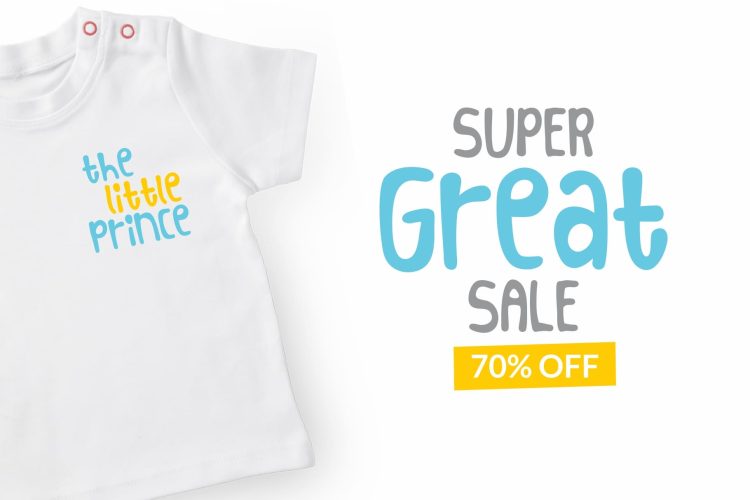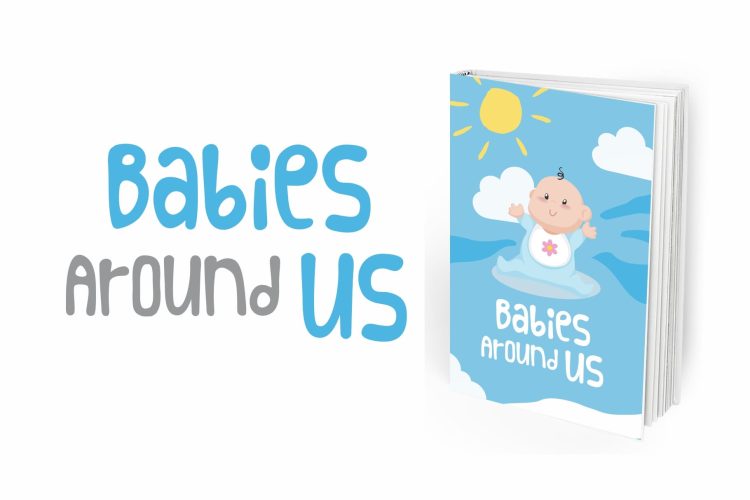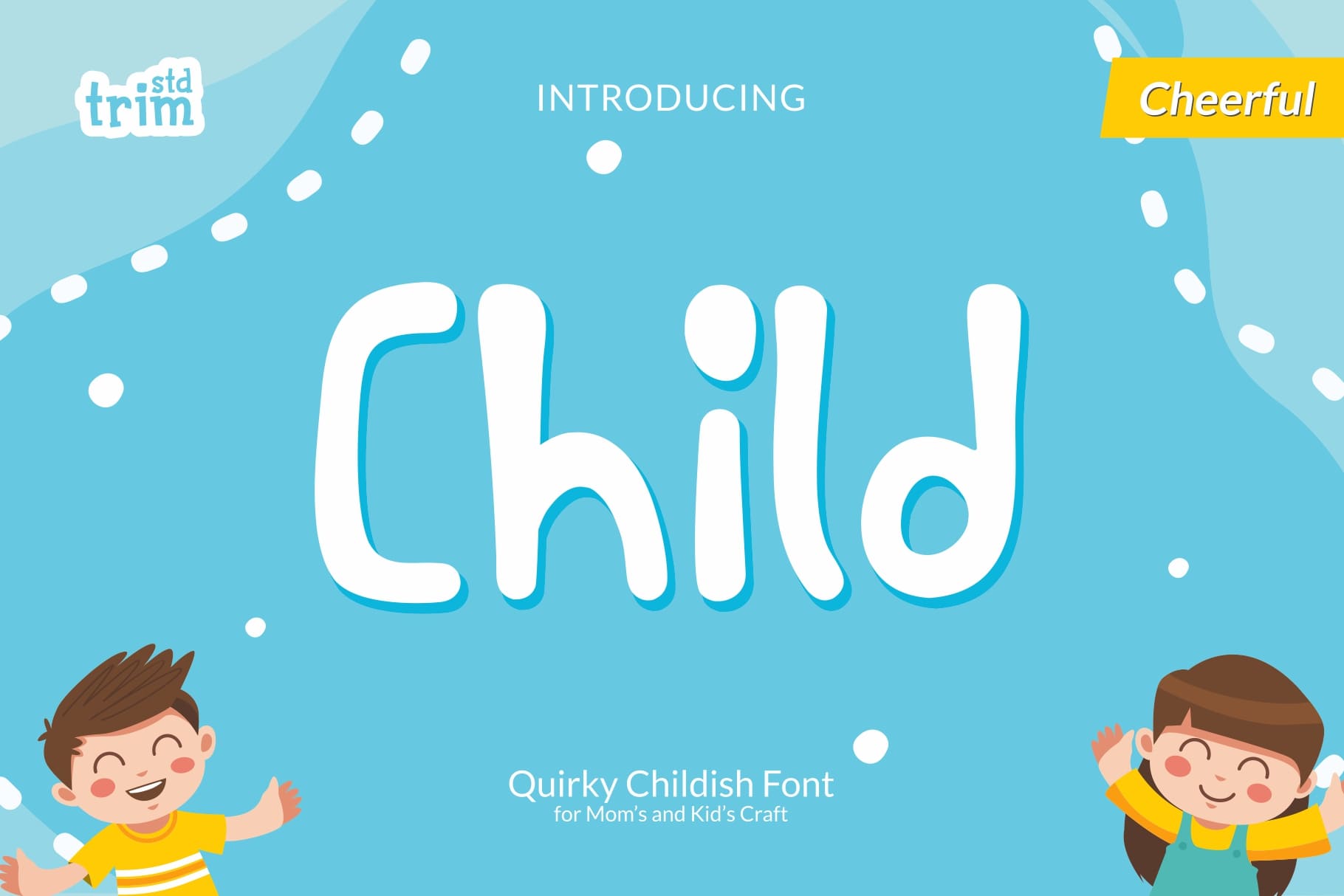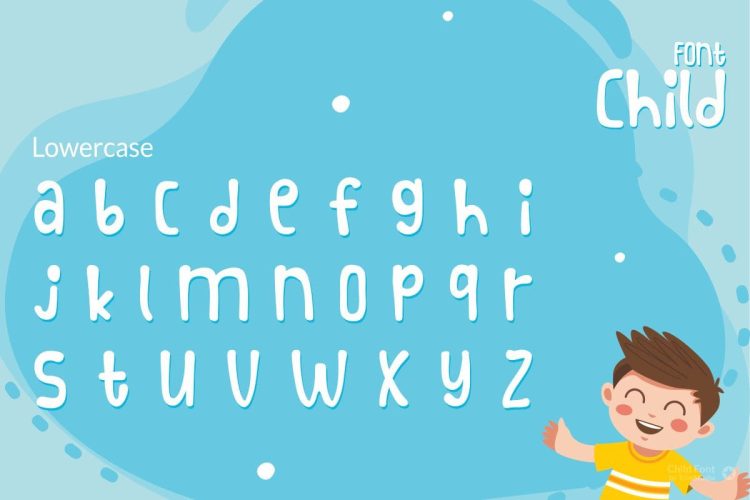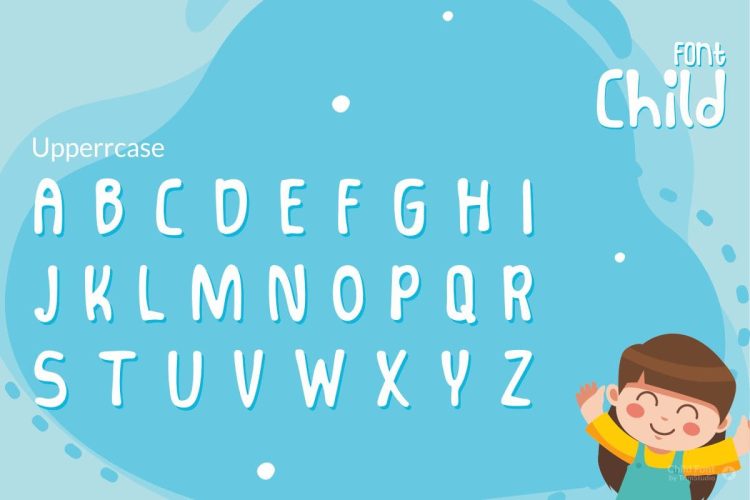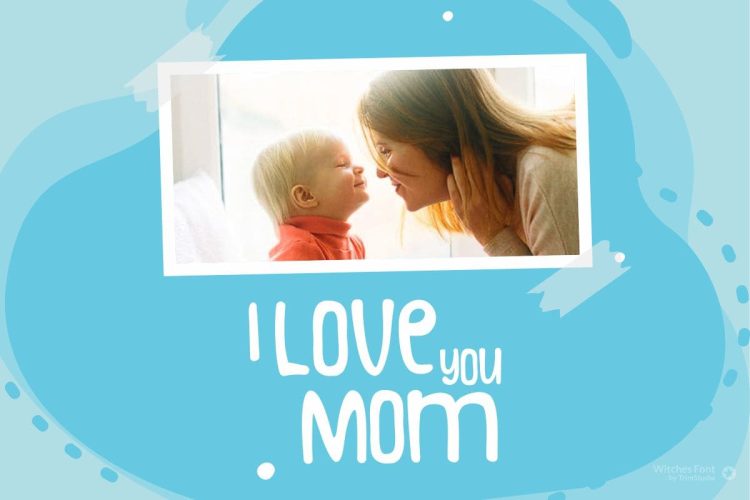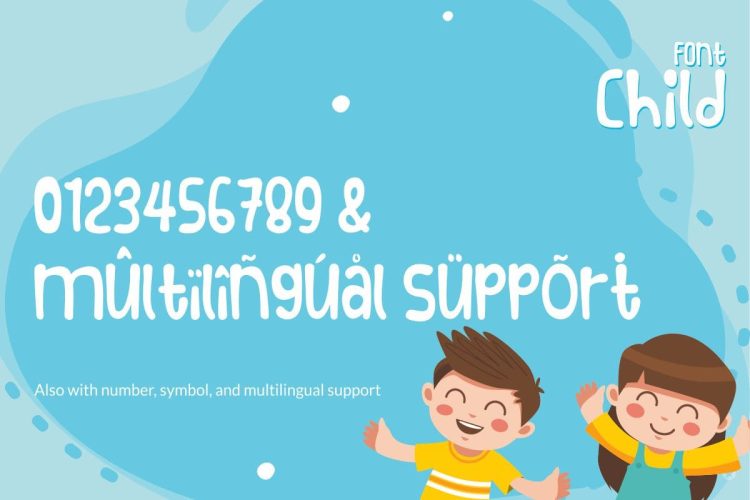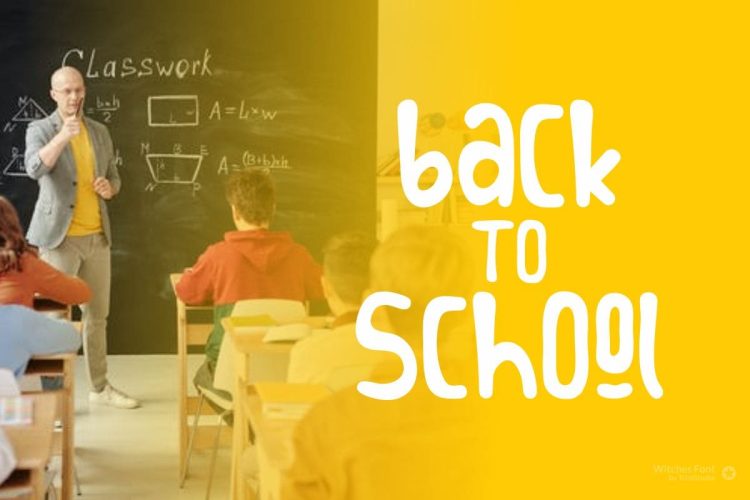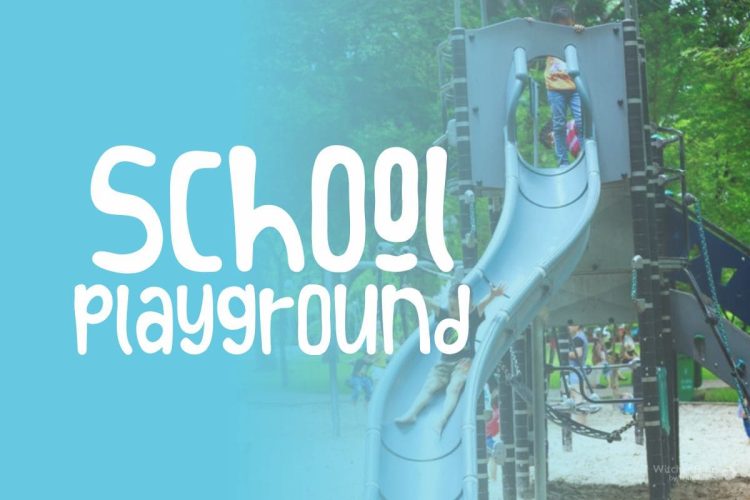
Child is a cute and quirky display font. It will attach a very playful and childish style to any design you wish to develop!Trimstd is amazing
Child – Quirky Childish Display Font